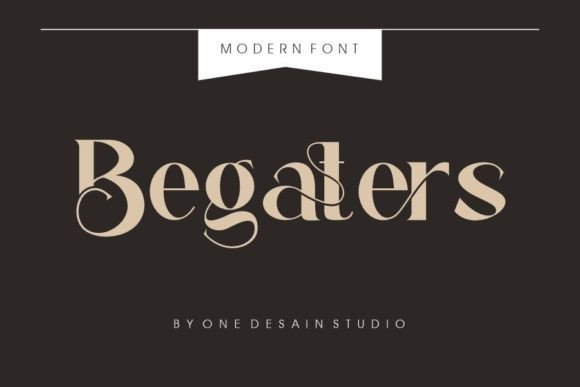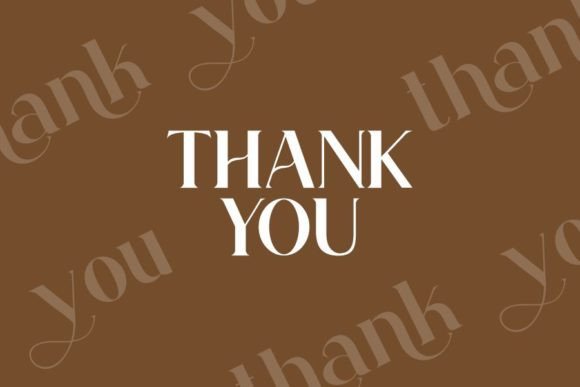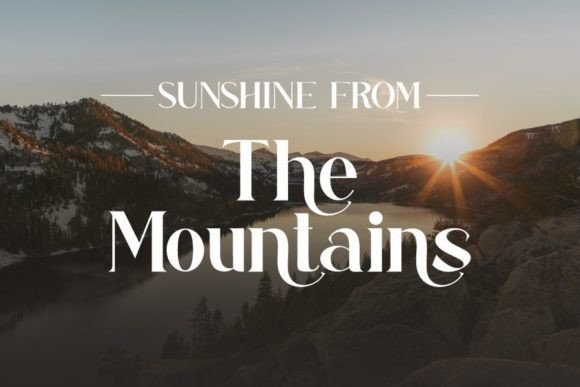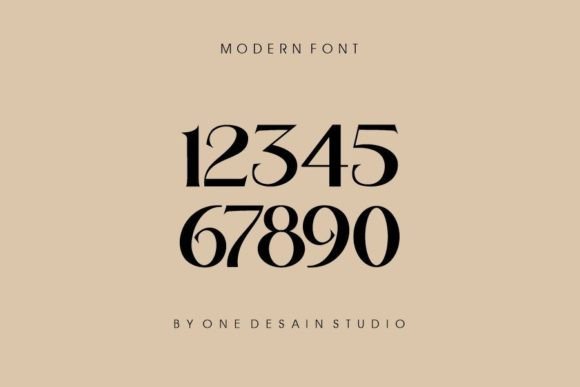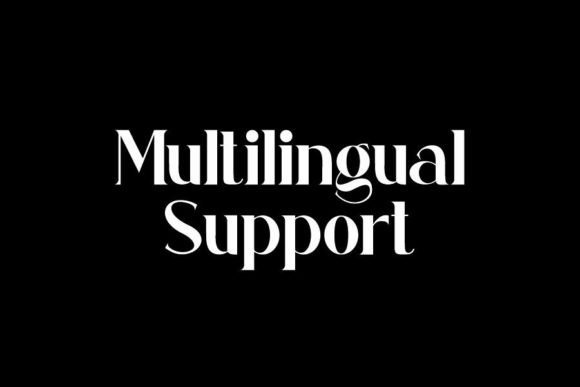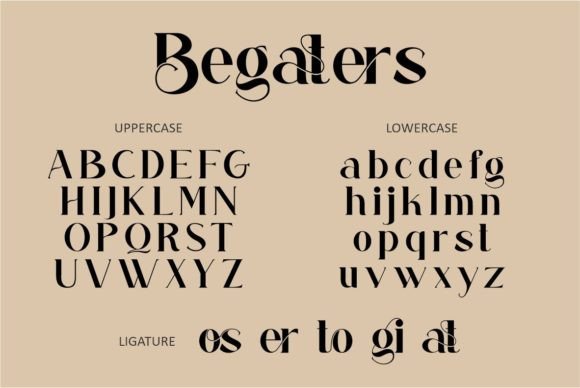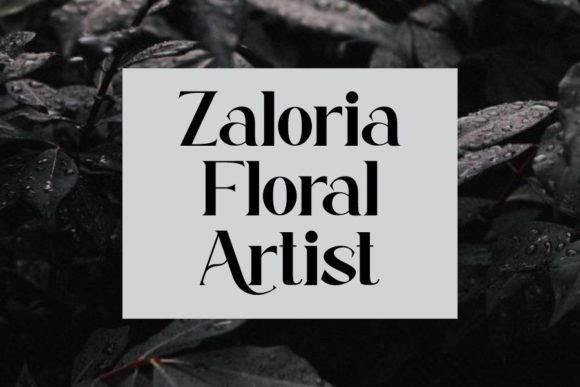
Begaters
Begaters: A Chic and Modern Slab Serif Font
Begaters is a chic and modern slab serif font that offers versatile styling through its unique design and stylistic alternatives. This adaptable typeface seamlessly transitions between boho and editorial design styles.
Key Features of Begaters
• Chic Design: Offers contemporary, stylish letterforms.
• Stylistic Alternatives: Includes multiple character variations.
• Design Flexibility: Adapts to both boho and editorial styles.
Best Uses for Begaters
Thanks to its versatile characteristics, Begaters works especially well for:
When using Begaters in your designs, keep these tips in mind:
• Use its versatile nature for both casual and formal projects.
• Take advantage of its modern character for contemporary designs.
• Let its chic style enhance various applications.
To sum up, Begaters is an excellent choice for designers seeking a chic and modern slab serif font with versatile styling options. Whether you’re creating boho-inspired designs or developing editorial content, Begaters offers the perfect blend of contemporary style and adaptable character.
Furthermore, Begaters’s distinctive design allows it to shine in contexts where both style flexibility and modernity are key. From social media content to print materials, this font can elevate your projects with its refined style. Also, its easily accessible stylistic alternatives make it particularly valuable for designers working in professional software environments.
In conclusion, Begaters truly captures the essence of modern versatility in slab serif typography. Its ability to work across different design styles shows how well it can serve various creative needs. Therefore, for those wanting to add a touch of chic sophistication to their work, Begaters can enhance any design with its distinctive style. Ultimately, it’s perfect for designers aiming to make a modern, versatile impact across a wide range of creative projects.